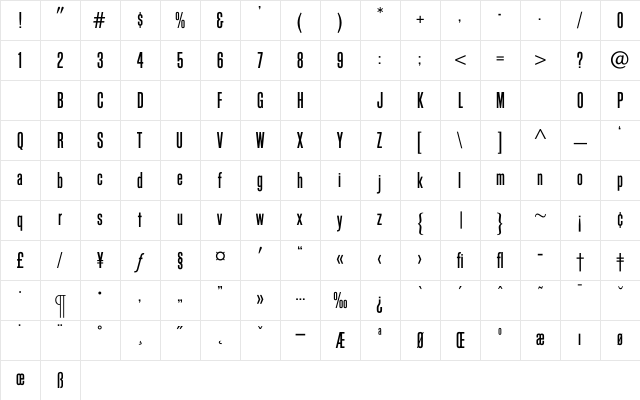
Complete BlockGothicMediumExtraCond Regular glyph index. Displaying only characters natively supported by BlockGothicMediumExtraCond Regular font.
BlockGothicMediumExtraCond takes a clean, functional approach - its unadorned letterforms prioritise legibility and work reliably across screen and print environments. Its narrow stance lets it pack a punch even in space-constrained designs.
Font Pairing: Works well alongside a characterful serif or display font that can carry the expressive load while BlockGothicMediumExtraCond handles the functional copy.
Pro Tip: Use BlockGothicMediumExtraCond tightly set in headlines and banners - its condensed proportions make it ideal for maximum impact in minimum horizontal space.